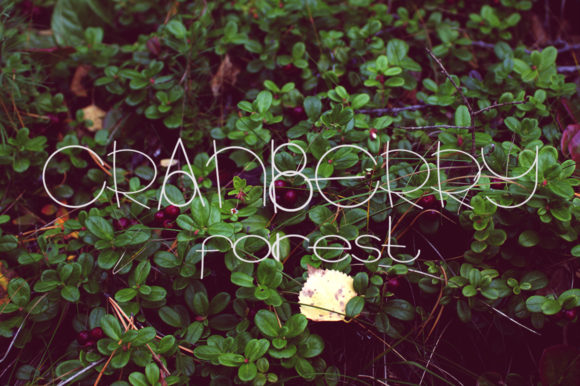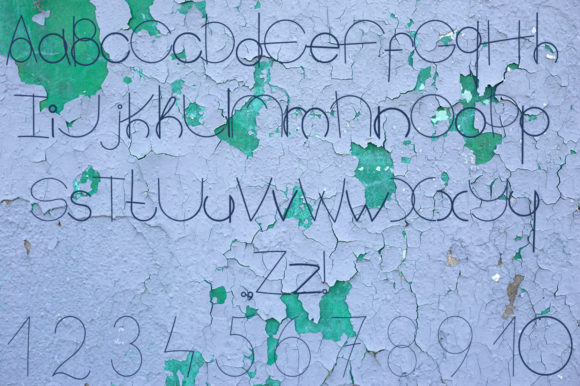
Introducing Concept Font: The Epitome of Minimalist Elegance
In the realm of typography, the right font can make or break a design. For those seeking a blend of modernity and simplicity, Concept Font emerges as a stellar choice. This thin lettered and geometric display font is not just a typeface; it’s a statement of style and sophistication. With its minimalist approach and trendy vibe, Concept Font is poised to breathe life into a myriad of design ideas, spanning both formal and informal projects.
The Essence of Concept Font
Concept Font is characterized by its strikingly thin letters and geometric precision. This combination lends it an air of elegance and modernity, making it an ideal selection for designers aiming to infuse their work with a contemporary flair. The geometric nature of the font ensures a level of versatility, allowing it to be seamlessly integrated into various design contexts, from sleek corporate branding to creative digital content.
Design Versatility
One of the standout features of Concept Font is its incredible versatility. Its minimalist design makes it a chameleon of sorts, capable of adapting to a wide range of design aesthetics. Whether you’re crafting a formal proposal, a chic logo, or an engaging social media post, Concept Font can elevate your work with its understated elegance. The font’s clean lines and simple shapes ensure that it remains legible even at smaller sizes, making it perfect for use in both print and digital media.
Why Choose Concept Font?
- Modern Aesthetic: Concept Font embodies the essence of modern design with its sleek lines and geometric shapes, ensuring your projects look contemporary and on-trend.
- Versatility: Its minimalist nature allows it to be used across a variety of platforms and design applications, from business cards to billboards.
- Ease of Legibility: Despite its thin strokes, Concept Font maintains excellent legibility, making it suitable for use in body text as well as headlines.
- Formal and Informal Appeal: The font’s neutral tone means it can effortlessly transition between formal and informal designs, offering flexibility for designers.
Applications of Concept Font
The applications of Concept Font are as varied as they are vast. Here are a few ideas to get you started:
- Branding and Logos: Create a lasting impression with a logo that exudes modernity and sophistication.
- Web Design: Enhance your website’s aesthetic with a font that complements a wide range of design styles.
- Print Materials: From business cards to brochures, Concept Font can add a touch of elegance to your print designs.
- Social Media Graphics: Stand out on social media with eye-catching graphics that leverage the font’s trendy appeal.
| Font Name | Concept Font |
| Author | Ana Babi |
Concept Font is more than just a typeface; it’s a design statement. Its blend of thin lettering, geometric precision, and minimalist charm makes it an invaluable asset for designers looking to infuse their work with a modern edge. Whether you’re working on a formal project or something more casual, Concept Font offers the versatility and style to bring your vision to life. Embrace the elegance of Concept Font and discover how it can elevate your designs to new heights.